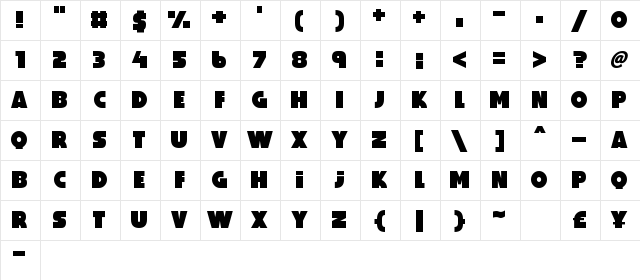
Perfect Princess Regular Free Font
Perfect Princess Regular
Design Context for Perfect Princess
Perfect Princess is a composed and adaptable typeface that performs quietly and consistently across a wide range of design contexts.
Pro Tip: Use Perfect Princess in both headline and body roles to test its range before committing to a single application.